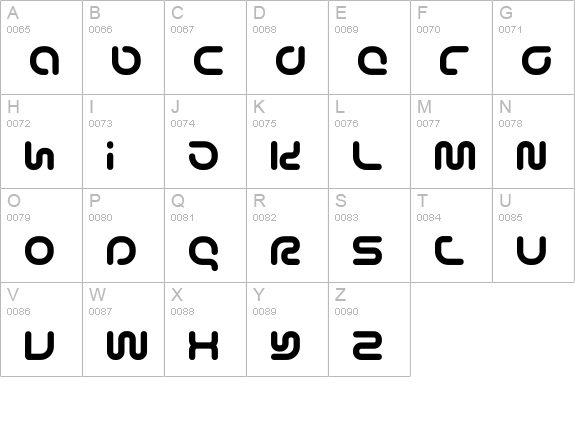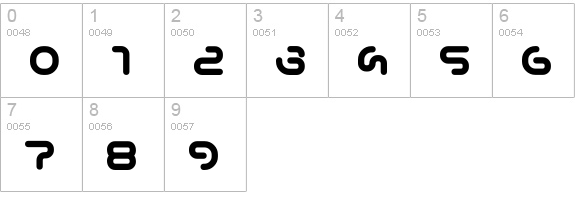
DS Popporn Font Details
DS Popporn font is a stylish and eye-catching display font that is sure to make your designs pop! With its unique and playful design, this font is perfect for creating attention-grabbing headlines, posters, and more. The quirky shapes and bold lines of DS Popporn font will add a fun and modern touch to any project. Best of all, DS Popporn font is completely free to download at FontsMarket.com. This means you can easily add this dynamic font to your collection without breaking the bank. Whether you're a designer looking to spice up your work or a hobbyist wanting to play with different fonts, DS Popporn font is a fantastic choice. Download it today and let your creativity soar!